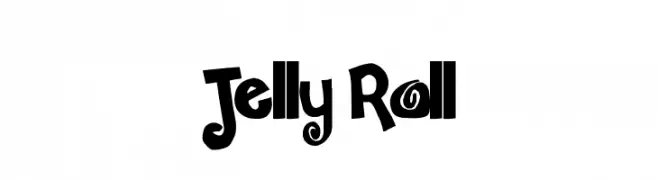
A bold, playful font with rounded, bulbous characters and a whimsical style.
Intricate decorative elements inspired by Nouveau, Rococo, and Deco styles.
A playful, bold font with rounded, bouncy characters and whimsical elements.
A geometric, outlined font with a modern and structured design.
A bold, geometric font with a modern, monospaced appearance.
A playful, retro-inspired font with tall, narrow characters and rounded edges.
A bold, playful font with a unique horizontal stripe pattern and rounded, three-dimensional characters.
A playful decorative font with whimsical symbols and icons.
A bold, geometric font with a modern and abstract design.